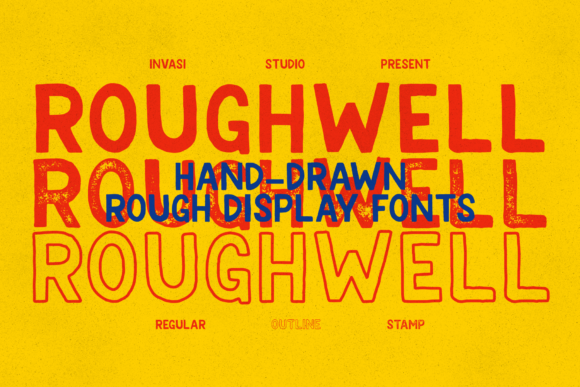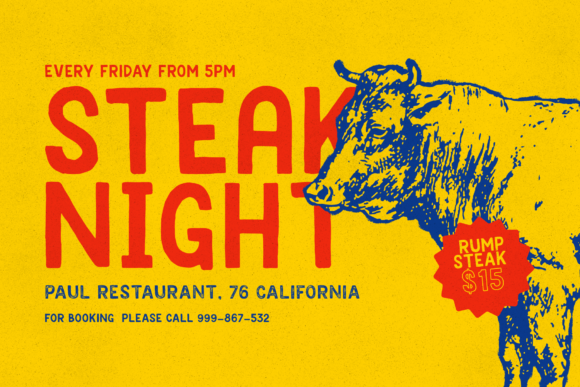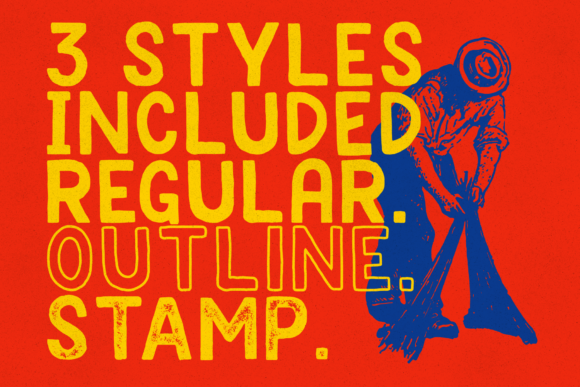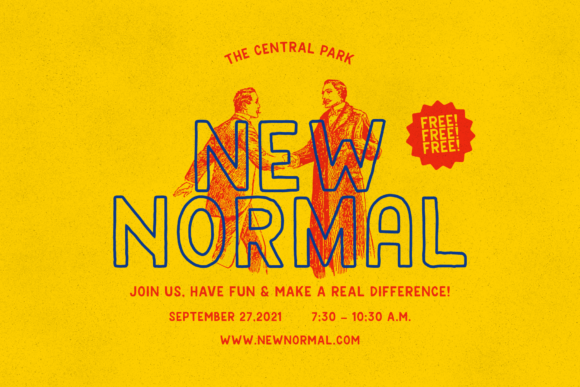
Roughwell Family Font
About the Roughwell Family Font
Presenting Roughwell Family Font, a unique and stylish typeface that will make your work stand out. Roughwell Family is a rough hand-drawn sans serif font with a retro stamp character. The imperfections keep it casual but still legible. It can be easily matched to an incredibly wide range of projects, so give it a try and see how it boosts your creative ideas!
Roughwell excels in headline applications, short text blocks on posters, and branding elements requiring a vintage or handcrafted feel. Its casual nature makes it ideal for packaging designs targeting a younger demographic or projects with a playful, retro aesthetic. However, avoid using it for body text or lengthy paragraphs; its irregularities hinder readability at smaller sizes.
The font’s core personality is bold and friendly, with a touch of vintage charm. This makes it suitable for brands focusing on craft beer, streetwear, or artisan products. It pairs well with clean sans-serif fonts like Helvetica Neue for contrast, or a more traditional serif like Garamond for a sophisticated vintage feel. A playful script font could also complement its hand-drawn quality.
Consider pairing Roughwell with a geometric sans-serif for a modern take on its retro feel.
Roughwell Family Font Usage Examples
Roughwell Family Font Example